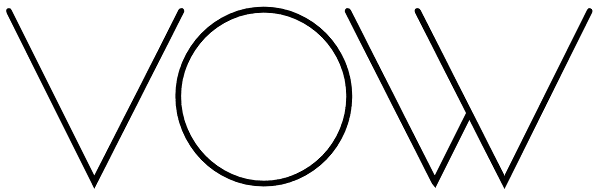
Vow
Vow is an incredibly stylised font, strutting its stuff on the typography catwalk. Vow does everything to excess, even when cutting down: where it’s curvy, it’s very curvy, but where it’s thin, it’s thin. Vow’s regular weight has a certain boldness...
Vow
Vow Thin